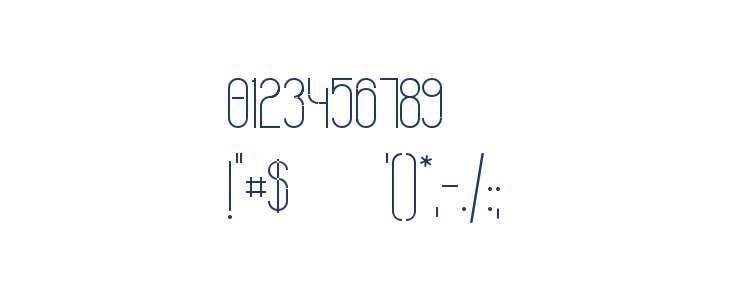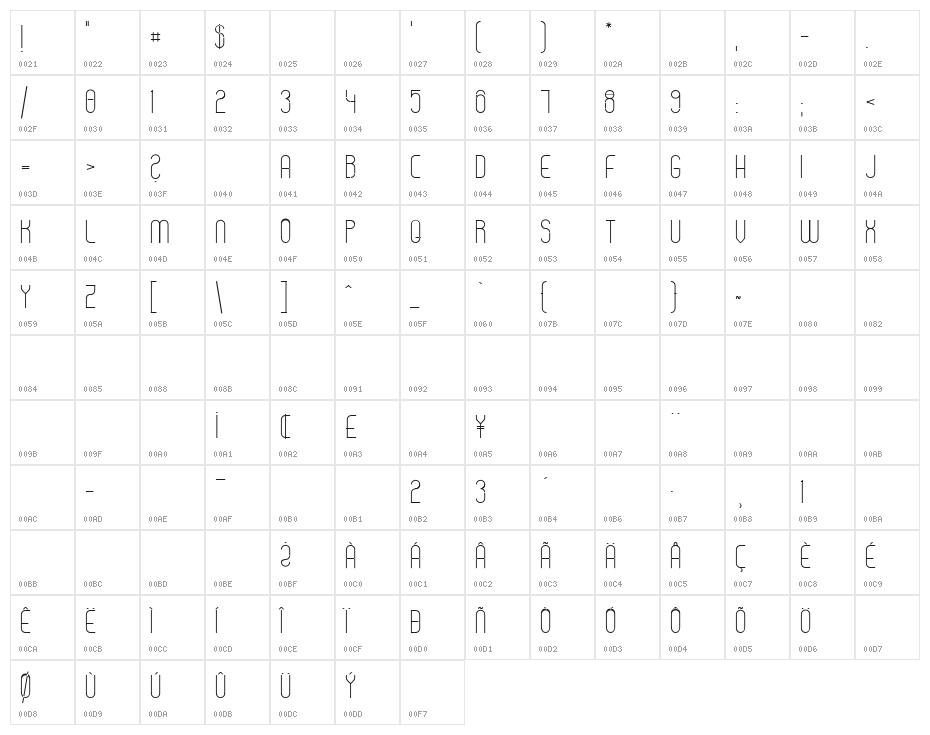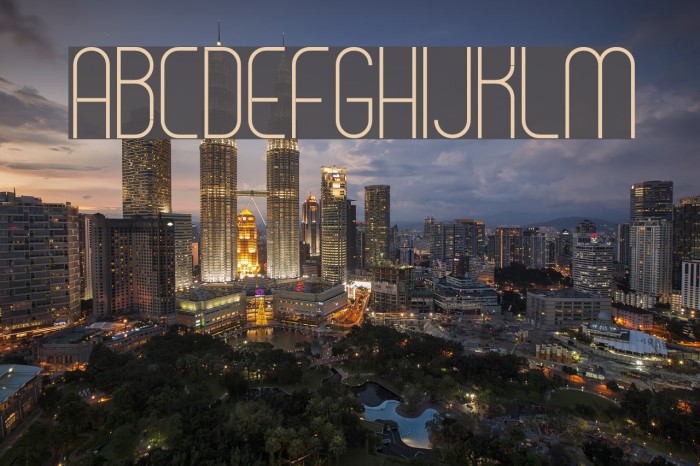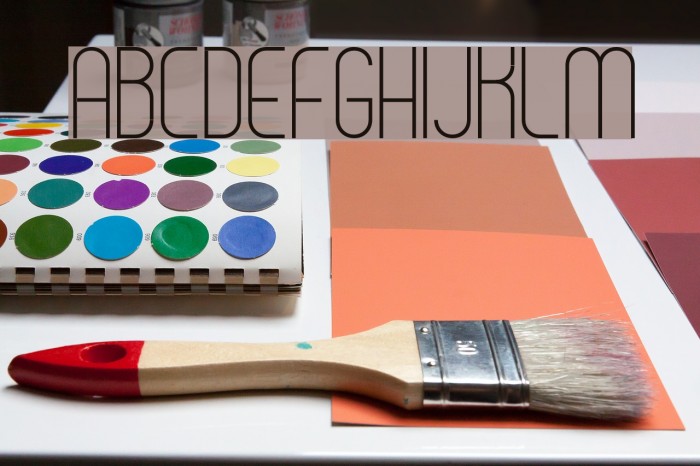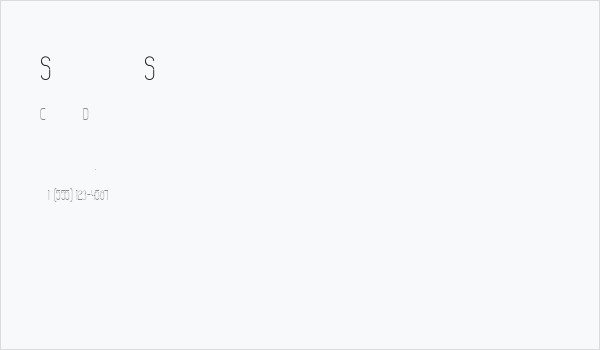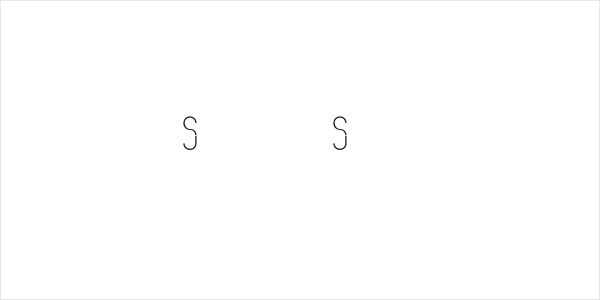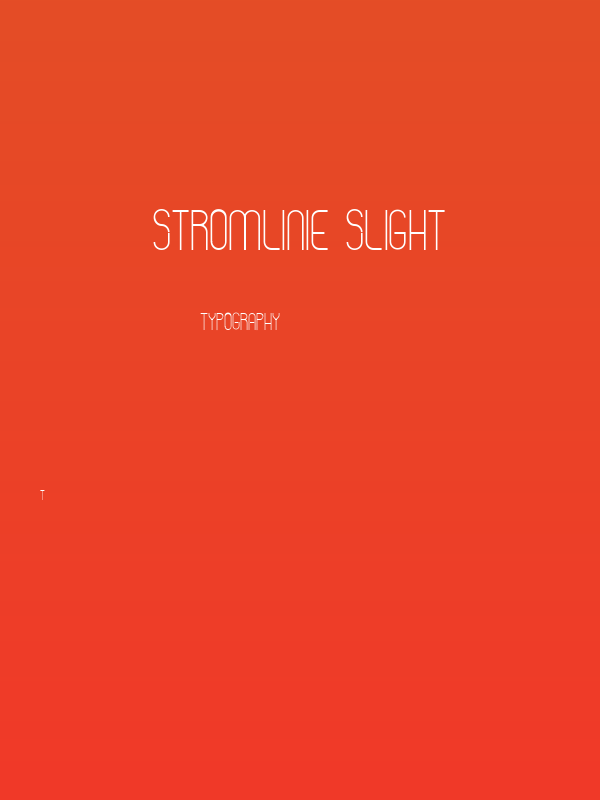
Stromlinie Slight Font
Stromlinie Slight Description
This font features a sleek, streamlined design with elongated, narrow characters that convey a sense of modernity and elegance. The uniform stroke width and geometric shapes give it a futuristic and minimalist appearance. The uppercase and lowercase letters maintain a consistent height, enhancing readability while preserving a unique aesthetic. The numerals and special characters are designed to match the overall style, contributing to a cohesive look. This font's clean lines and open forms make it suitable for a variety of design applications where clarity and style are paramount.